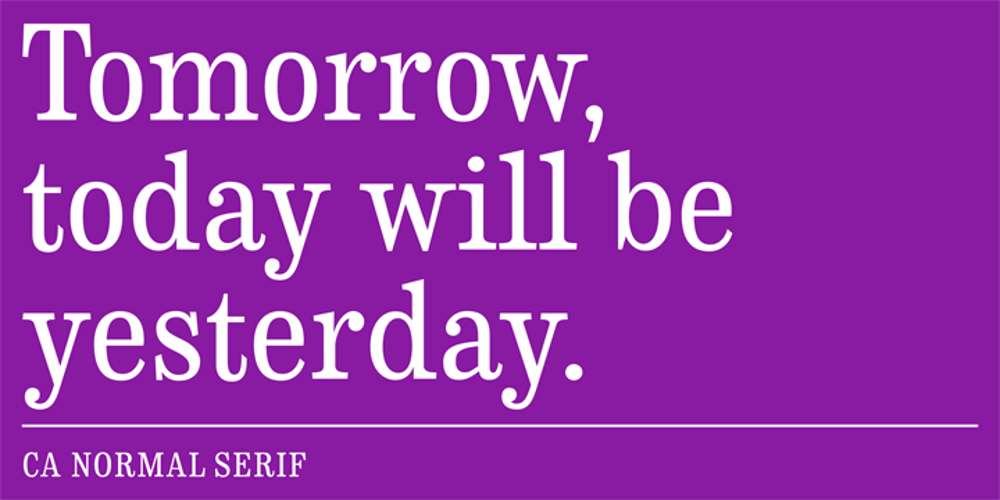
CA Normal Serif
CA Normal Serif font
CA Normal Serif Font Family was designed by Stefan Claudius and published by Cape Arcona Type Foundry. CA Normal Serif contains 10 styles and family package options. CA Normal Serif is the perfect companion to its grotesque brother CA Normal. But it is not just a serifed equivalent. It has a character of its own while preserving the principal proportions and the idea of quirkiness. It was not the aim to build a typeface that can immediately be identified as a relative of CA Normal. The intention was to create a matching typeface in aspects of aesthetic and concept. Whereas commonly serif-companions to grotesques are old-style or slab-serif, CA Normal Serif is situated between modern and slab-serif typefaces. CA Normal Serif is a little bit of an uncomfortable typeface. Nothing is smooth and cozy. It picks up elements of classic newspaper type as brought to us by Chauncey H. Griffith’s legibility group, sharing the flavor of abrasive details and “slabbish” serifs. But the proportions are more condensed than the ones of its predecessors giving it a bit more elegance, which moves it closer to the aesthetic of “Scotch Romans”.